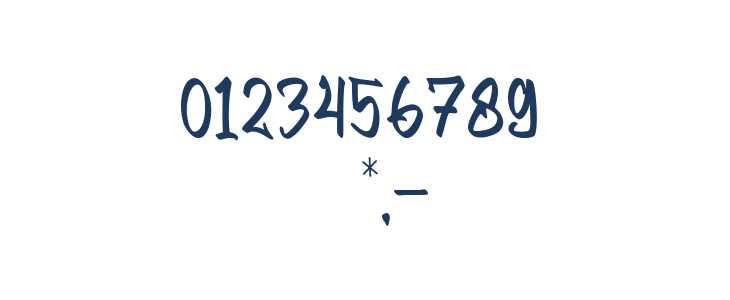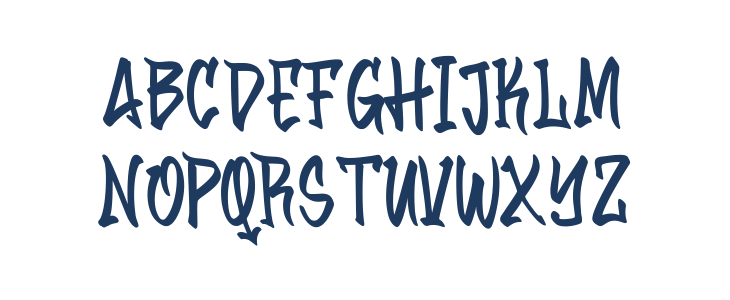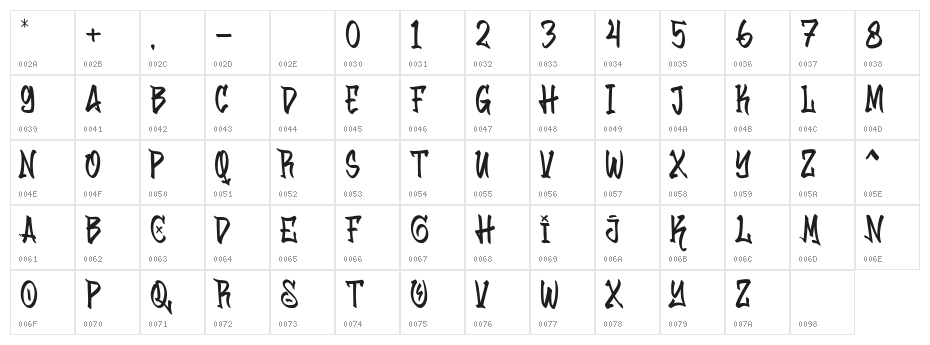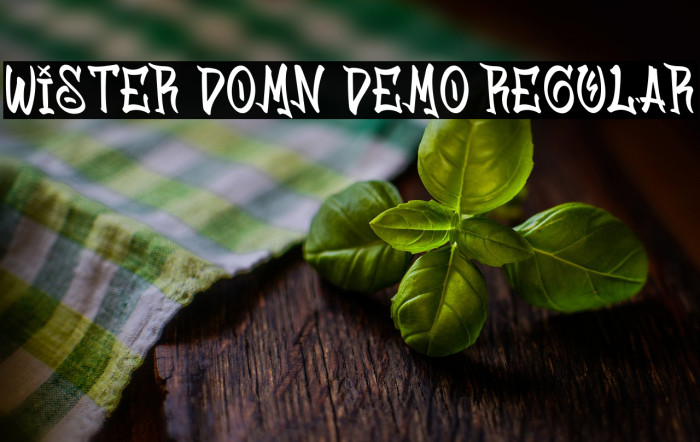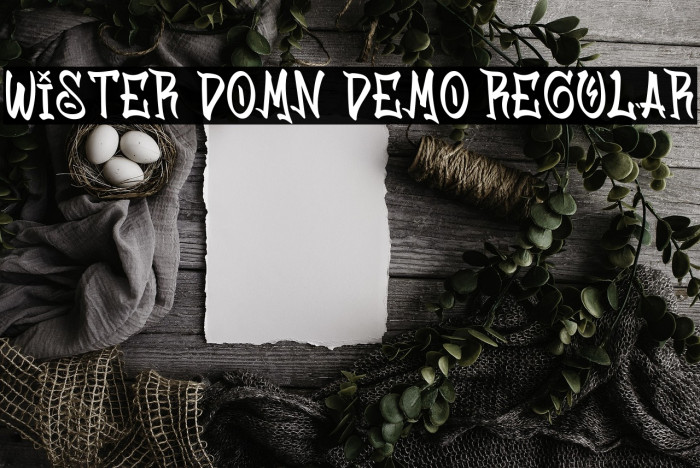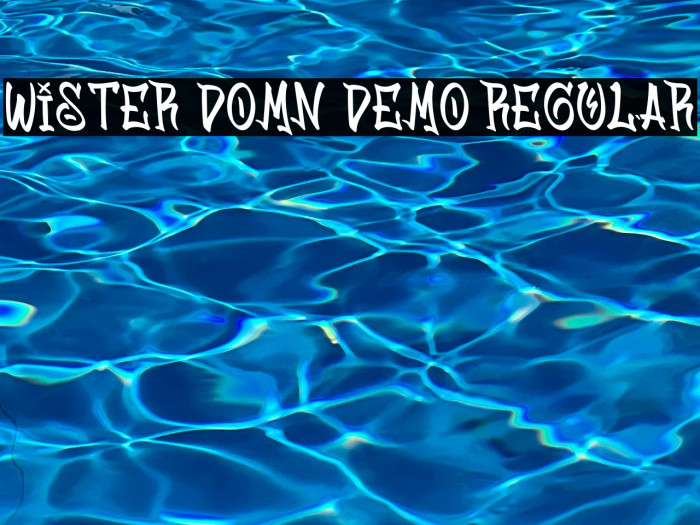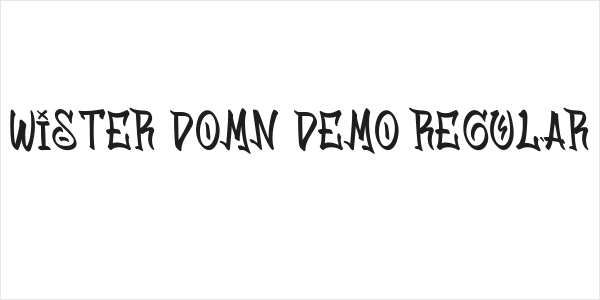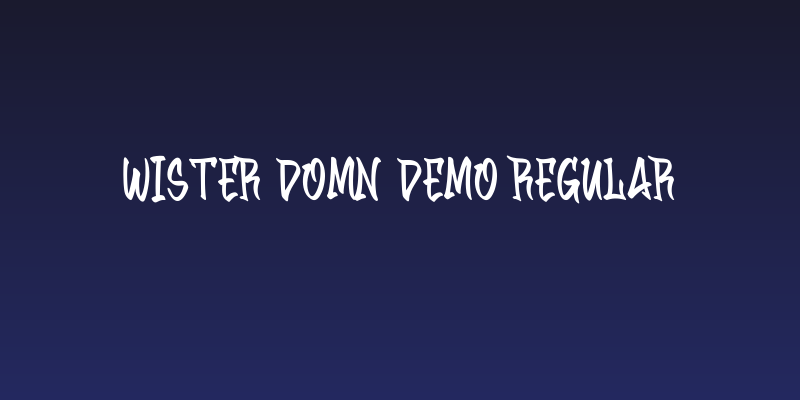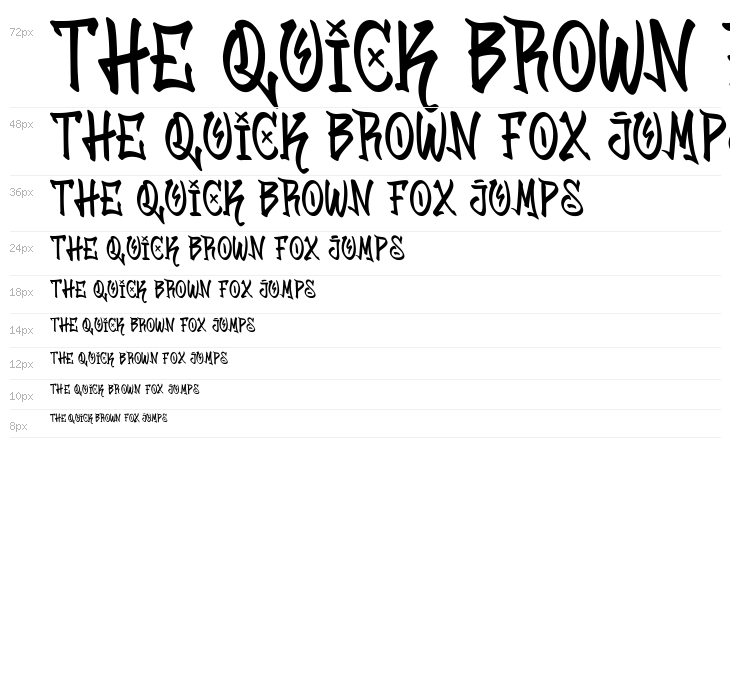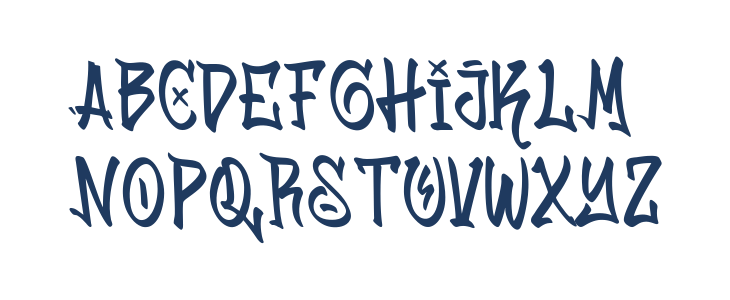
Wister Domn Demo Regular Font
Wister Domn Demo Regular Description
A decorative handwritten font with playful, irregular strokes and exaggerated curves, featuring unique character shapes and whimsical details. The letters have a dynamic, energetic feel with varying stroke thickness and some ornamental elements.
| Overall Style | Decorative, Playful, Artistic |
| Use Case | Logos, Headlines, Posters, Invitations |
| Proposed Projects | Posters, greeting cards, branding for creative businesses, event invitations, childrenΓ’β¬β’s books, artistic logos. |